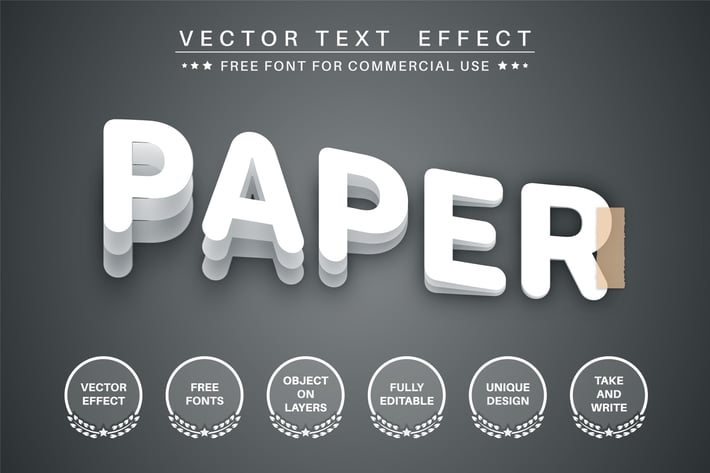
Paper layer- editable text effect, font style
Hello! I'm happy to introduce my new text effect "Paper glued to scotch tape". Just write your word and the effect will apply! Be as creative as you like to be in expressing yourself using this unique “Paper glued to scotch tape”. Effect is perfect for any project that needs a unique handy touch whatever else your imagination leads you to!